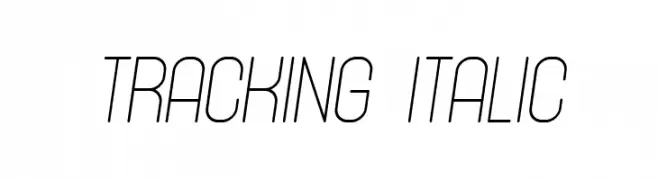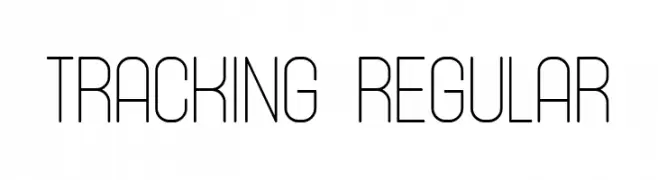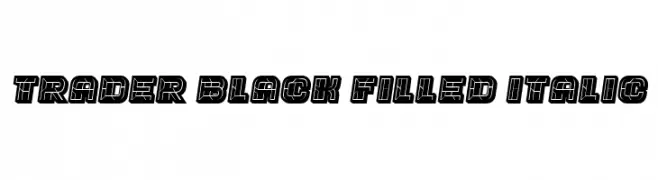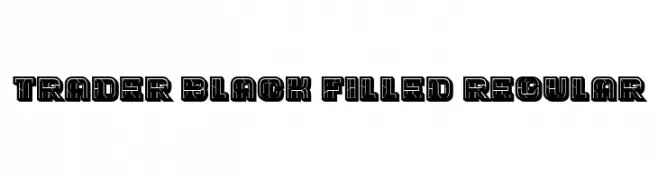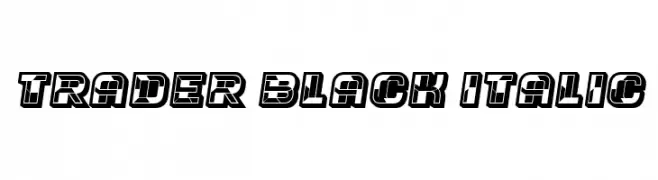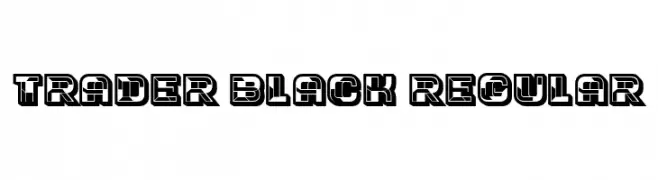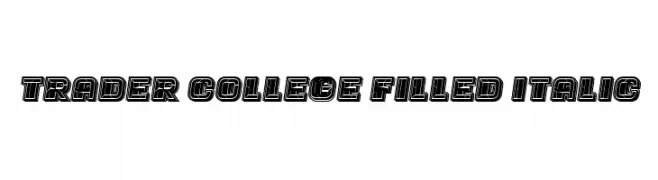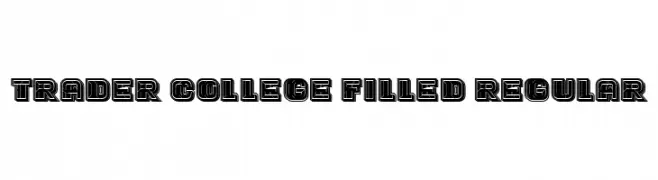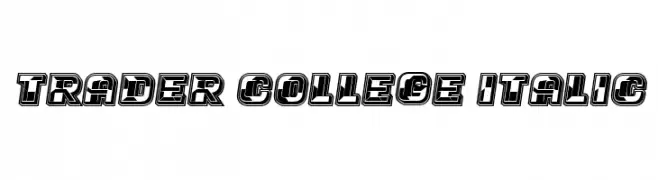
A sleek, italicized font with narrow, elongated characters and a modern aesthetic.
A sleek, modern font with geometric lines and a minimalist aesthetic.
Bold, italicized font with a modern, geometric style.
A bold, geometric font with a three-dimensional effect and strong visual impact.
A bold, italic font with thick outlines and a modern, dynamic style.
A bold, geometric font with a three-dimensional effect and contrasting outlines.
Bold, italicized collegiate font with a strong, outlined design.
A bold, collegiate-style font with a filled, outlined appearance.
Bold, italicized font with a college varsity style and 3D effect.
A bold, three-dimensional collegiate-style font with a strong, blocky design.